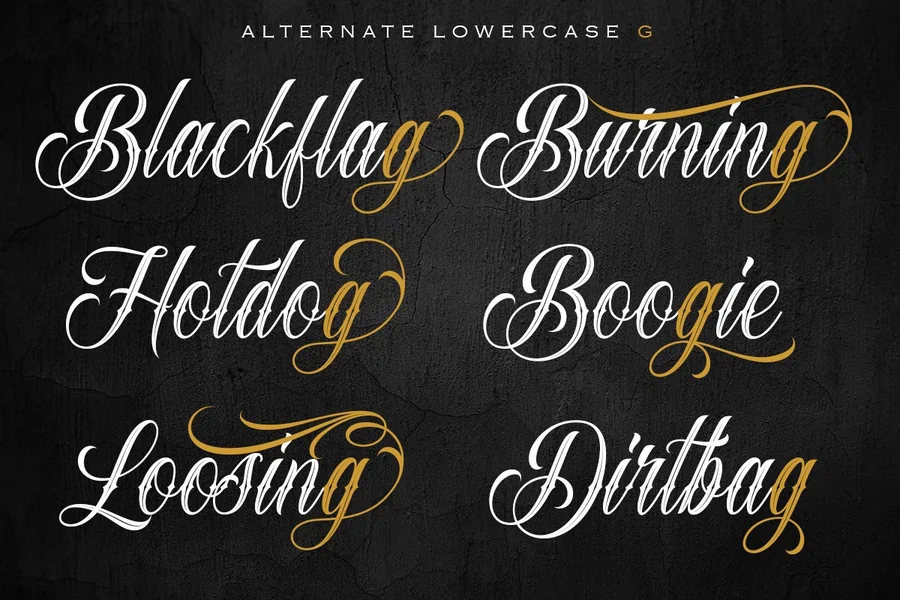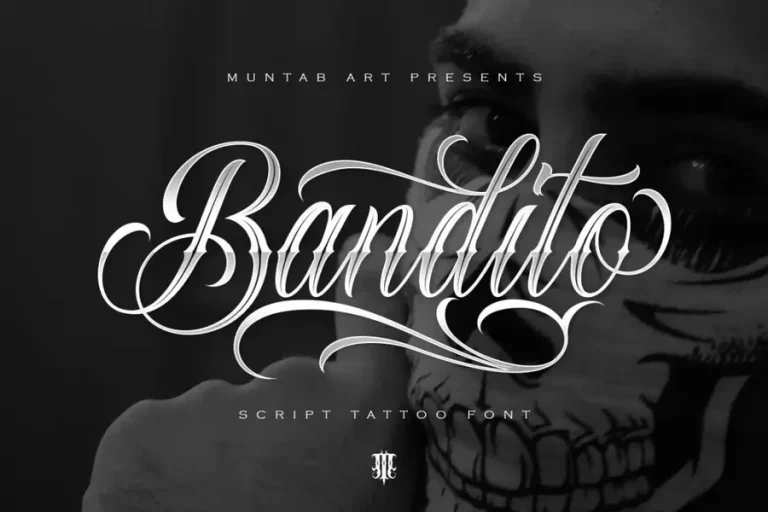
Bandito Font Style Guide For Creative Design Lovers
Bandito font is an expressive and bold type of font that gives a lot of energy to any type of design. It is assuredly playful and artistic simultaneously. This font is popular among many designers as it is able to give character without appearing to be heavy. The bandito typeface can be used in posters, logos street art designs, as well as digital branding projects. It is contemporary and has a retro feel that resonates with the artistic audiences.
Bandito font is a good font when you feel like expressing attitude and personality. It is not timid, and it does not go into the background. It is applicable to designers who want words to speak loudly and clearly. This typeface is commonly used in branding music brands and game imagery and youth oriented material. It assists brands to appear bold, but not aggressive.
The bandito font is beautiful by its versatility. You may apply it to headlines of titles or even brief phrases. It is salient both on light and dark backgrounds. It is also complemented with plain fonts on the body. This equilibrium makes it extremely popular in contemporary graphic design work.
History and Inspiration Behind Bandito Font
Bandito font is inspired by the street culture urban art and typography. It is an expression of freedom, creativity and confidence. Even the name itself implies rebellion and charm. It is usually related to the freedom of expression and daring identity among designers.
The outlines of bandito font tend to be drawn by hand or a bit of a roughness. This gives it a human touch. It is not mechanical and cold. Numerous iterations of bandito font demonstrate mischievous curves solid lines and assertive distances. This assists it in branding and marketing endeavors.
Bandito font also is related to the current trends in digital world. It is effective on social media thumbnails poster album covers and game interfaces. It has visual energy thus making it ideal in the fast scrolling space to get attention.
Why Designers Love Bandito Font
Bandito font is selected by designers as a way of narrating a tale without the use of any additional embellishments. It exudes one look of confidence and creativity. It is effective both offline and online.
The other reason why designers are fond of the bandito font is its versatility. It may either be fun or edgy, depending on the color and layout. Depending on the way it is utilized, it can be artistic or professional. Due to this flexibility it is a popular choice in branding projects.
Bandito font is also well scaled. It appears to be robust in extremely big headers and can be understood in smaller fonts. This is handy in case of logos poster and banners and on the social media.
Best Uses of Bandito Font
Bandito font will be used in work that requires personality. It glows in the music artwork fashion branding of gaming graphics and youth culture campaigns. It is also appropriate in street wear logo posters and artistic advertisements.
Bandito font may be used to write social media page or packaging design of the site. It does not give energy to the viewer to the extent of it being too busy. It is commonly matched by cleanser serif fonts by designers.
It is also effective with personal branding. Designers who desire to be bold tend to use bandito font to show confidence and originality.
Bandito Font Pairing Ideas
The companion font to the right is a pairing bandito font which enhances readability. Simple and clean fonts are good. Bold appearance of bandito font is balanced with the light serif fonts or the sans serif fonts.
When used together in the correct combination bandito font is the focus and the secondary font is the support to the message. This contrast assists in the flow of the eye of the reader through the design.
Too much decorative font may diminish the effect. Having a single font of a bandito that is strong coupled with a single font of a bandito that is neutral brings about harmony and a clear image.
Is bandito font good for logos?
Yes bandito font works very well for logos especially for brands that want a bold and expressive identity
Can bandito font be used for web design?
Yes bandito font can be used for web headers banners and hero sections to create visual interest
Is bandito font suitable for professional branding?
Yes when used correctly it can look professional while still being creative and modern
Does bandito font work for print designs?
Yes bandito font works well in print such as posters flyers and packaging designs